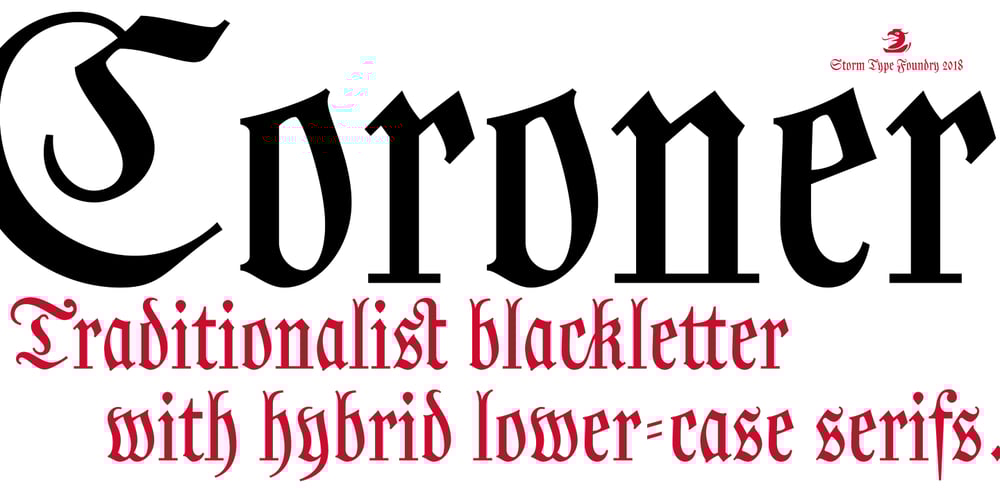
Coroner Font Family was designed by František Štorm and published by Storm Type Foundry. Coroner contains 1 styles and family package options. I never needed to digitize this early design from 1988. I found it in a drawer underneath layers of dozens of other type designs. The drawings were made with ink on paper, about 15 cm high, meticulously executed and retouched separate glyphs for a primitive photo-lettering. I used a photographic magnifier to set words and lines in my darkroom. In 2018 I decided to make a font out of it just for fun…